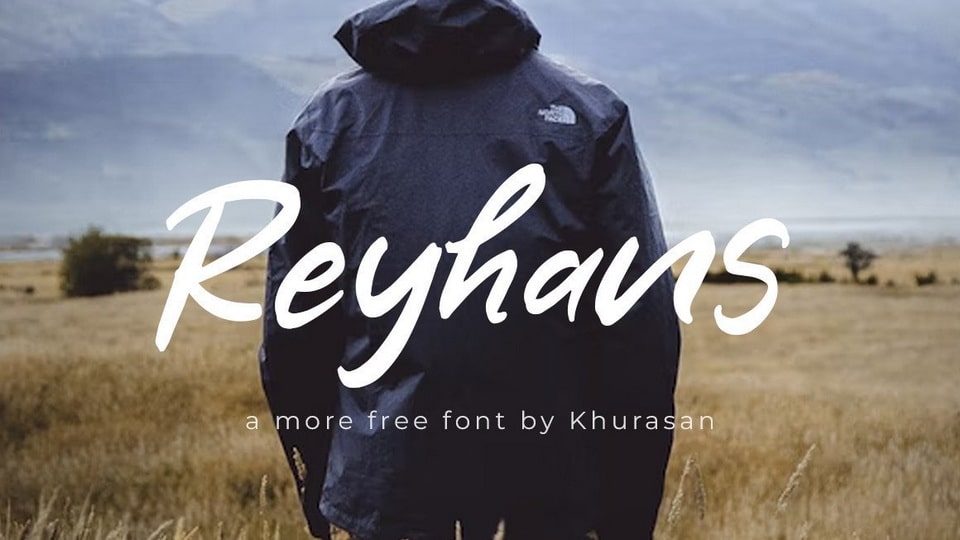
Download Reyhans font, a modern brush script typeface with a natural handwriting texture. It’s perfect for posters, logos, magazines, book covers, banners, and many more.